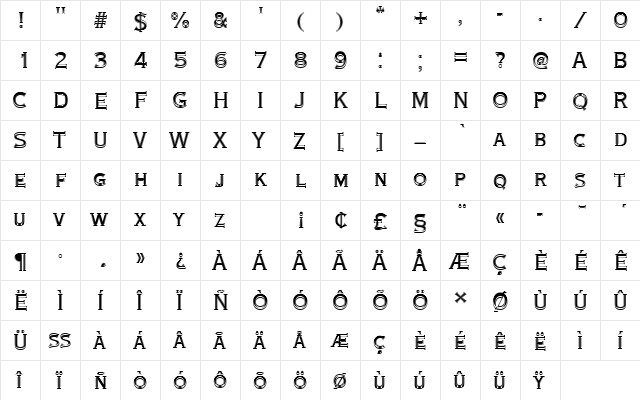
CopperplateTMedConIn1 Regular
Design Context for CopperplateTMedConIn1 Typeface
CopperplateTMedConIn1 is a composed and adaptable typeface that performs quietly and consistently across a wide range of design contexts.